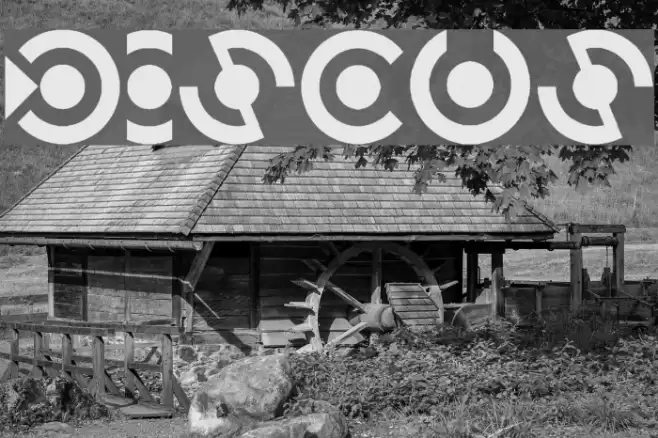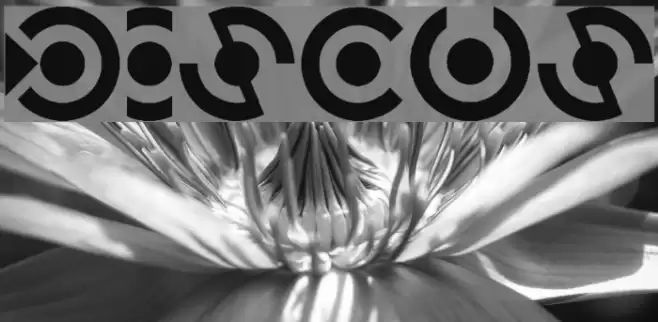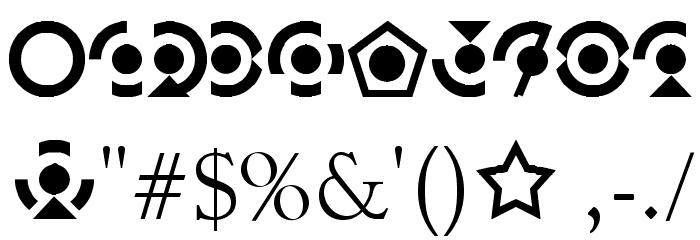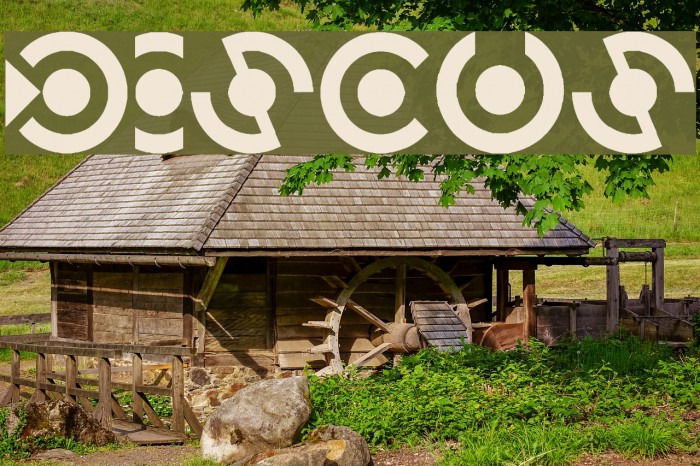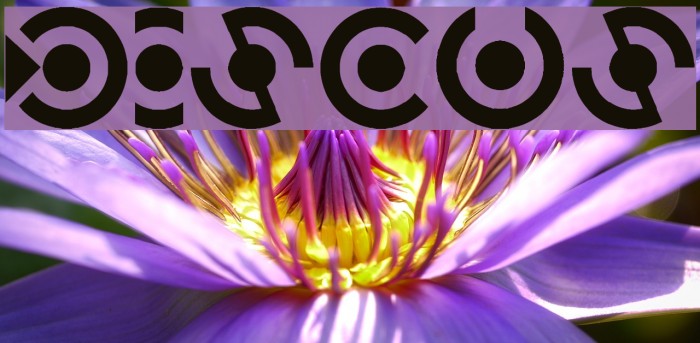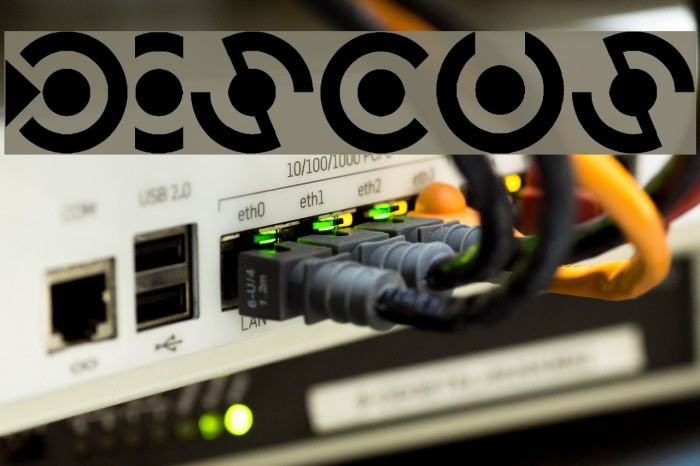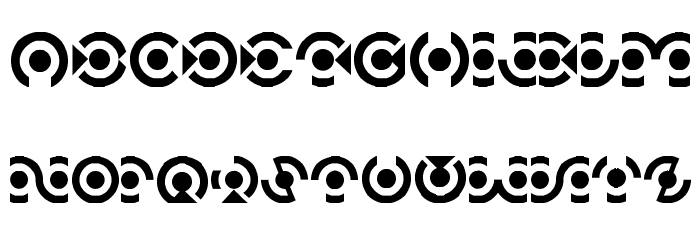
Discus Font
Discus Description
This font features a highly decorative and abstract design, characterized by bold geometric shapes and intricate patterns. Each character is crafted with a combination of circles, lines, and angles, creating a unique and artistic appearance. The font's style is reminiscent of futuristic or sci-fi themes, with a strong emphasis on symmetry and balance. The boldness of the characters ensures high visibility, making it suitable for eye-catching designs. The overall aesthetic is modern and avant-garde, appealing to those looking for a distinctive and unconventional typeface.
A bold, geometric, and abstract font with a futuristic style from Uncategorized fonts.
- Proposed Projects: Ideal for sci-fi themed posters, modern art projects, unique branding, and decorative headlines.
- Overall Style: Modern, Futuristic, Abstract